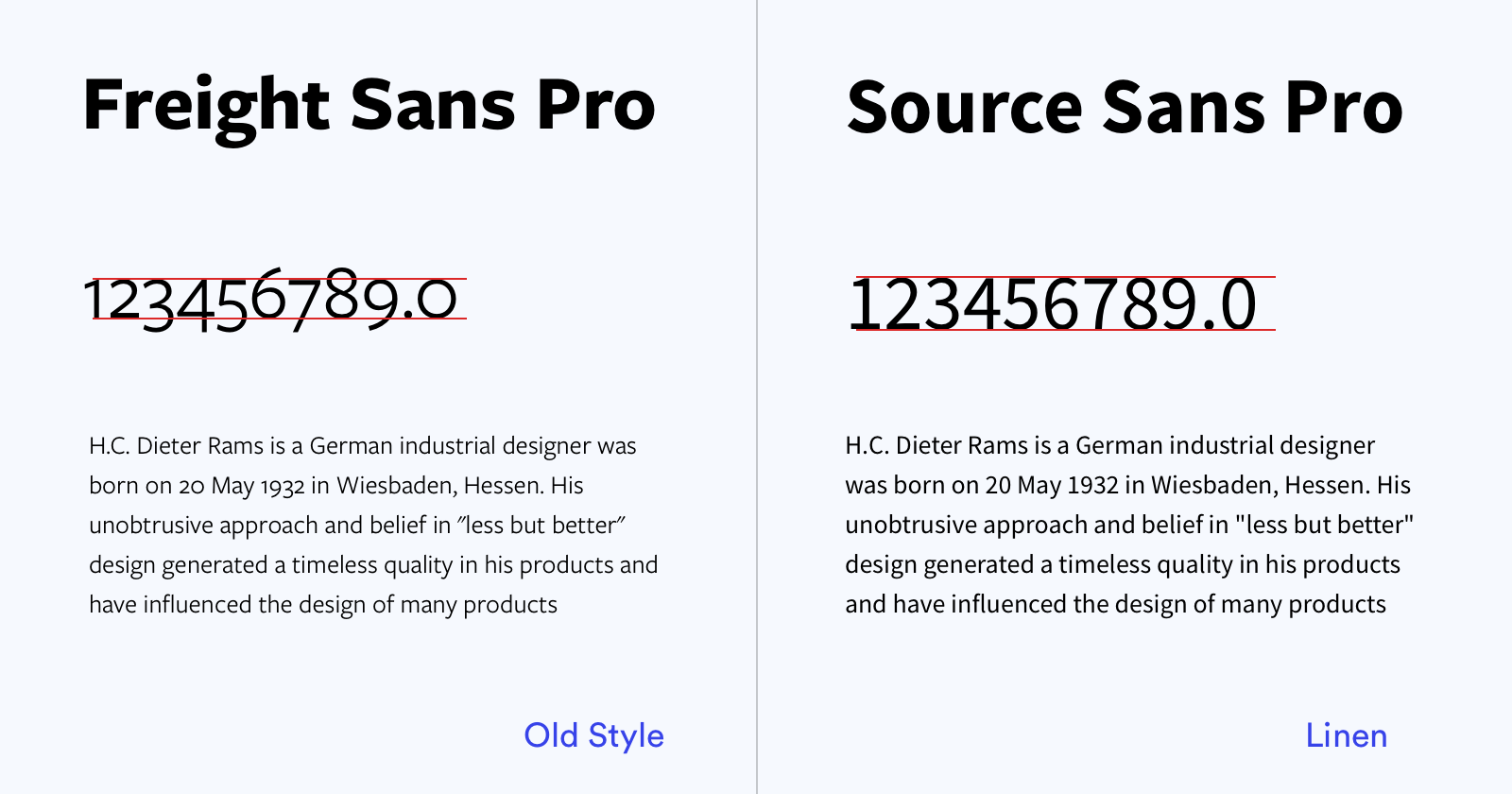
Freight Sans Font Google
If you recognize the font from the samples posted here don't be shy and help a fellow designer. Explore freight sans designed by joshua darden at adobe fonts. Freight's comprehensive range of weights and styles excels in a variety of uses, from train schedules and university catalogues to te.
Download freight sans pro font. This google font is all about simplicity and elegance. Freight sans™ is not a free font.
The font is available in all formats (freight sans pro woff2, freight sans pro woff, freight sans pro ttf, freight sans pro eot) and applicable to the website, photoshop and any os. Other members of the superfamily include freight sans, freight neo, freight display and freight. Freight sans pro was designed by joshua darden and published by garagefonts.
Freight is an extremely versatile superfamily with many different versions available, making it suitable for a wide range of typographic challenges. As a great header font choice, it works well with most popular serif and san serif fonts like: Download for free full family of freight sans pro font for photoshop, sketch, macos, windows, in all weights (freight sans pro woff2, freight sans pro woff, freight sans pro ttf, freight sans pro eot)
Download free freight sans font for photoshop, macos, windows, in all weights (freight sans woff2, freight sans woff, freight sans ttf, freight sans eot) 55 professional freight sans lf pro fonts to download. Complete family of 12 fonts:
Here are some similar fonts: Designed to be used at larger sizes for display and headline usage. If you want to use freight sans™ then i suggest just paying for it and downloading freight sans™ here.
Freight sans is another number font that. Adobe fonts is the easiest way to bring great type into your workflow, wherever you are. Font management allows you to install, activate, and deactivate the fonts you need, while keeping your collection organized.
Adobe fonts is the easiest way. Free fonts often have not all characters and signs, and have no kerning pairs (avenue ↔ a venue, tea ↔ t ea). Freight sans pro contains 12 styles and.